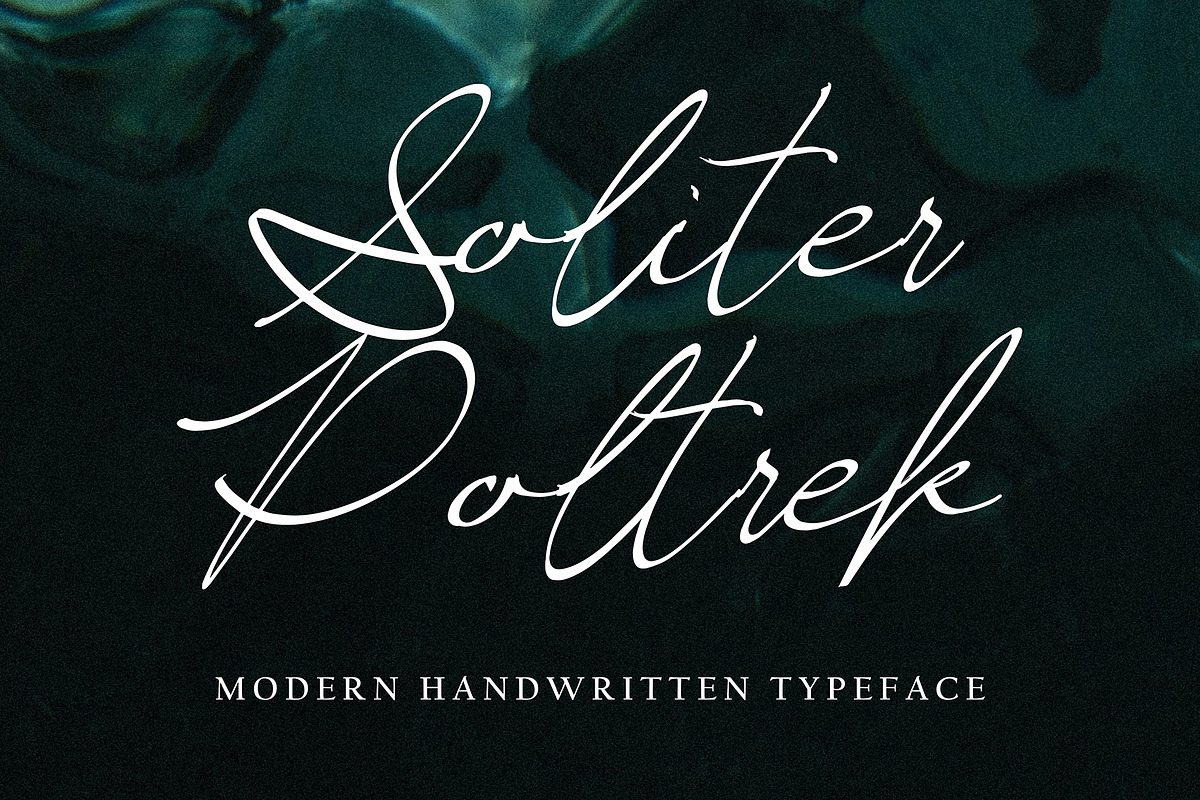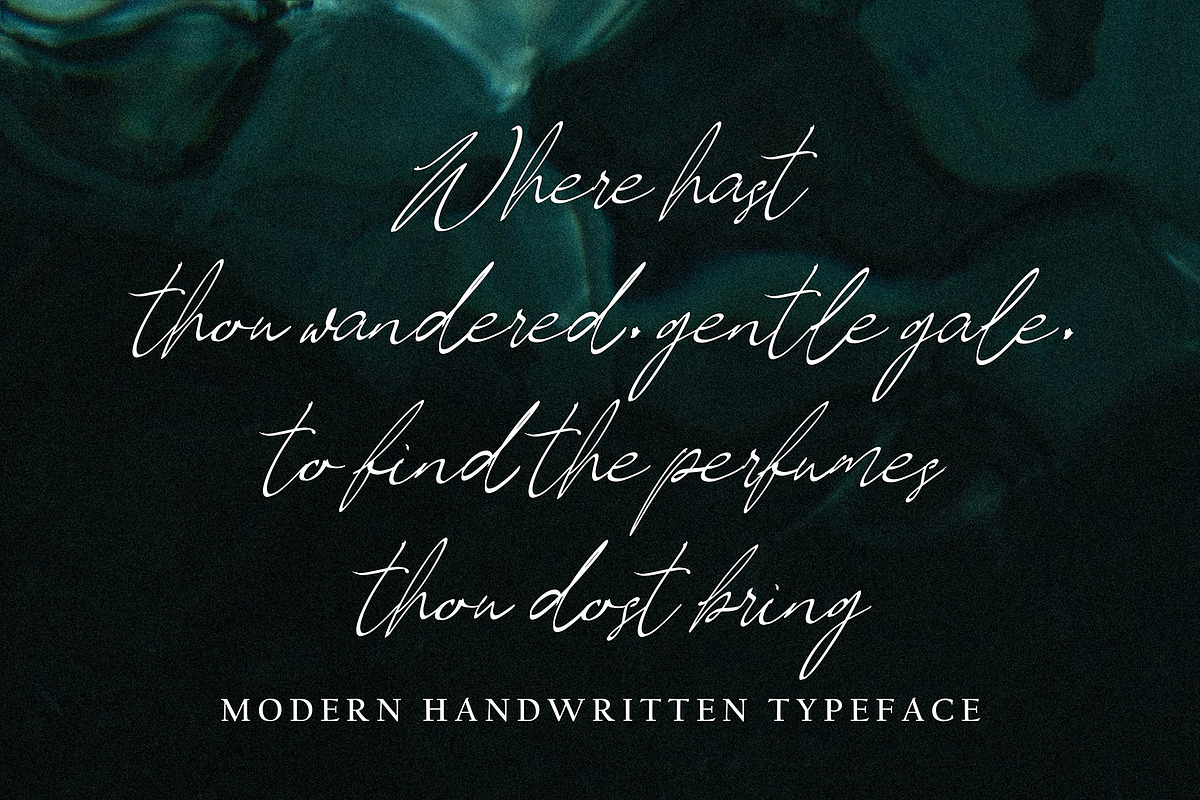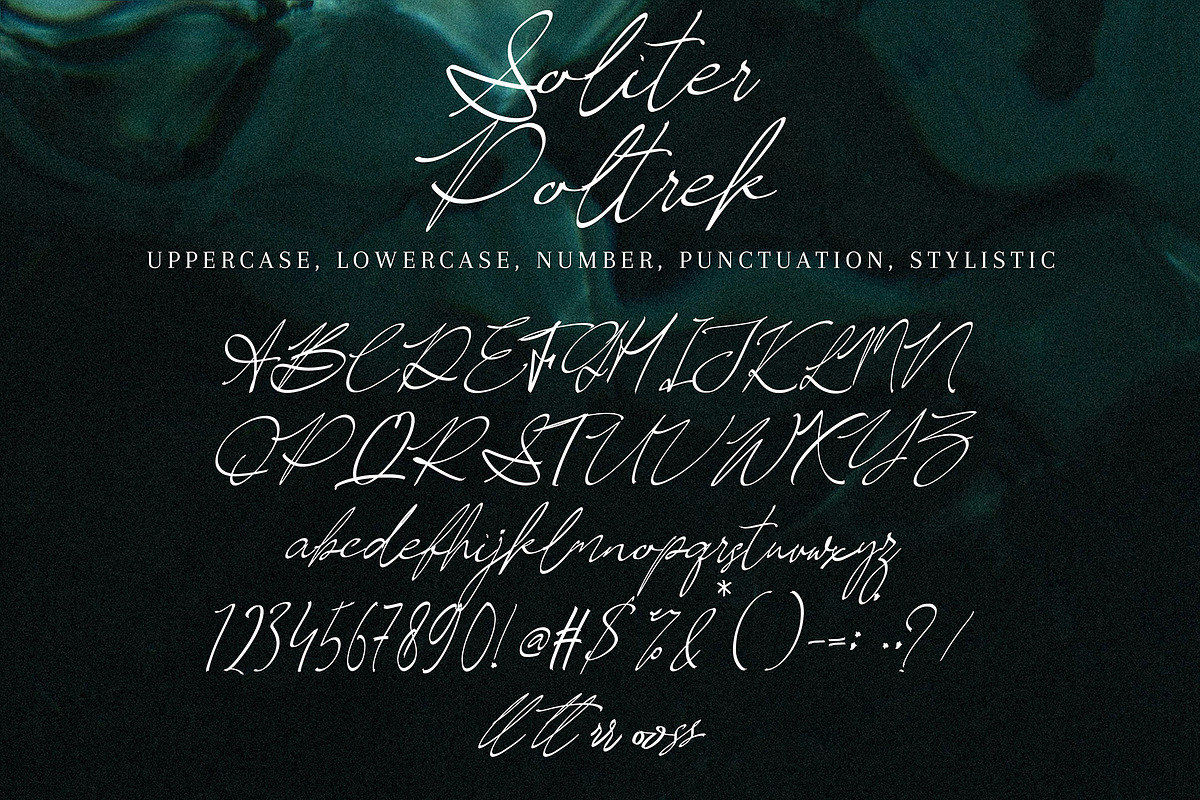
Soliter Poltrek
Soliter Poltrek with new style, this font will perfect for many different project ex: quotes, logo, blog header, poster, banding, letter, invitation, stationery, etc...